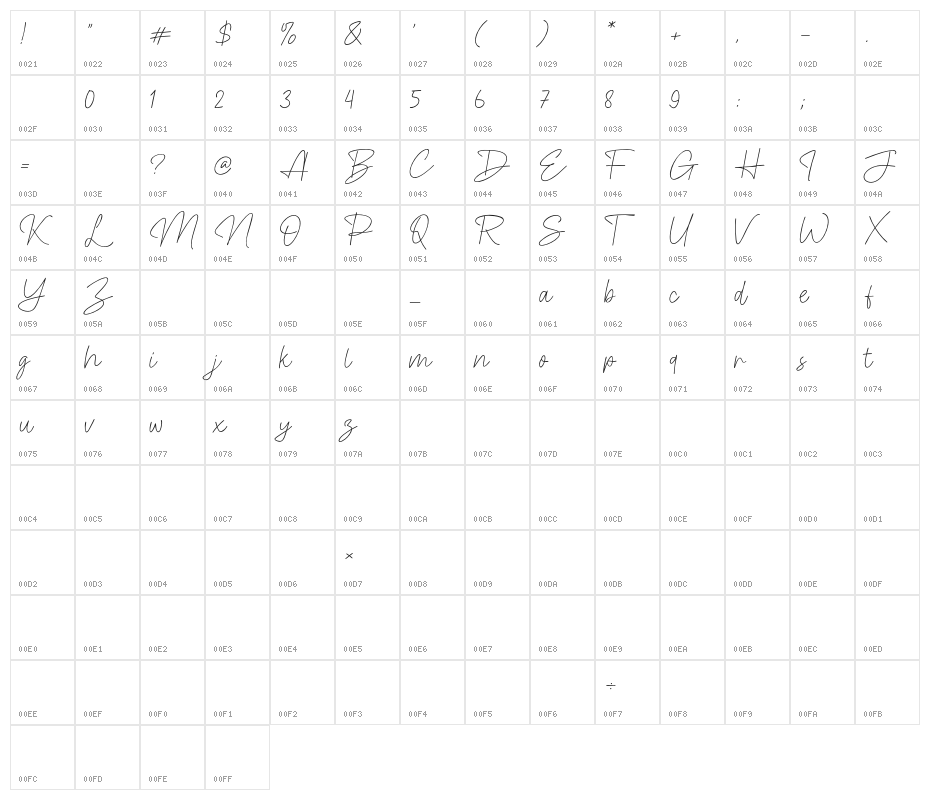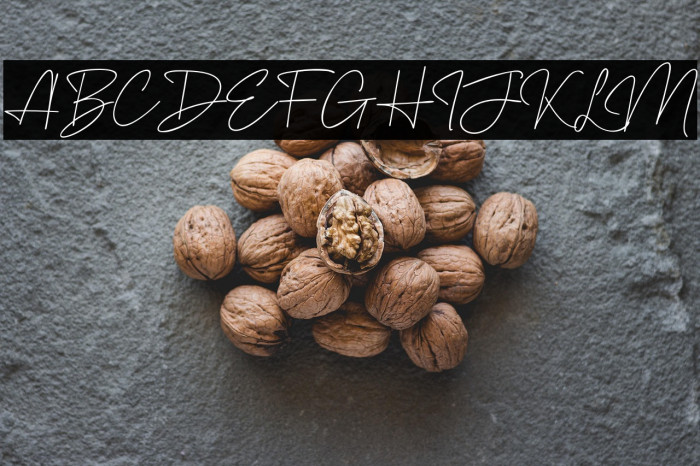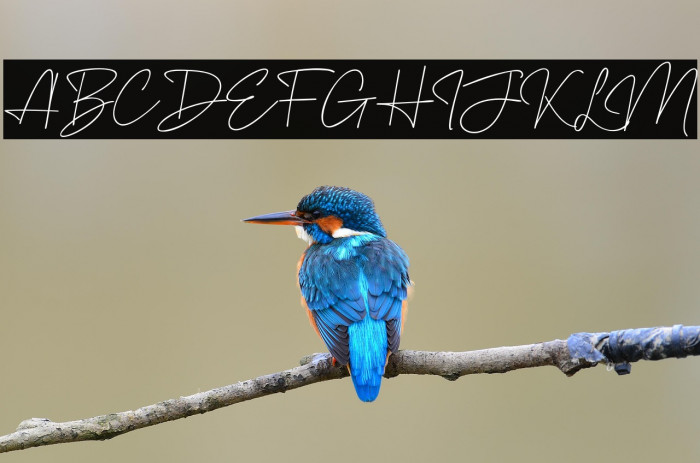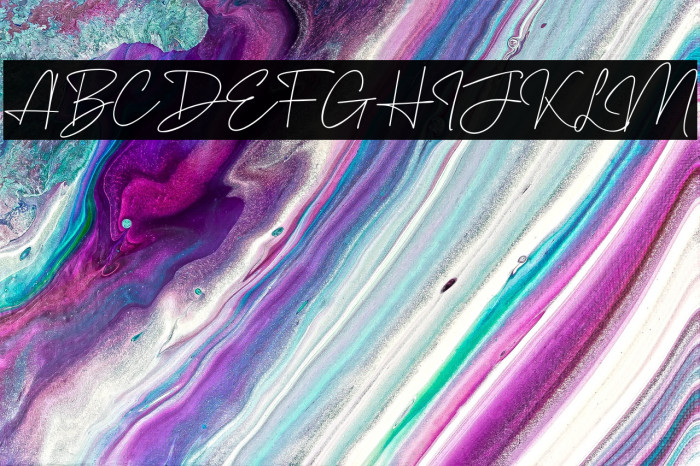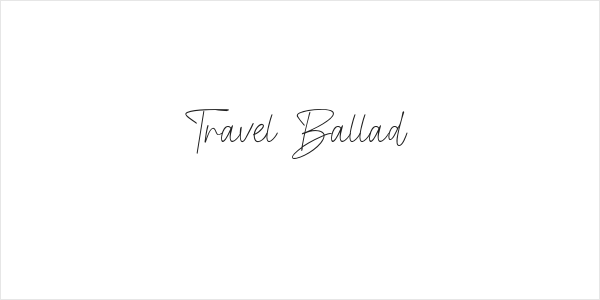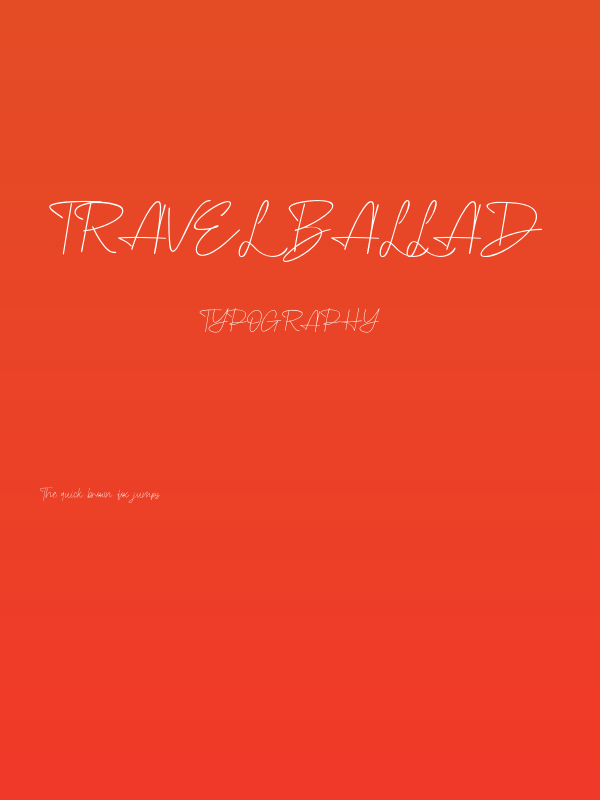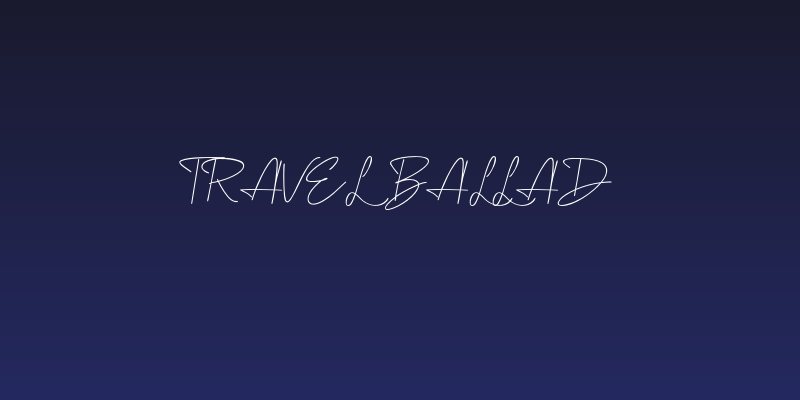
Travel Ballad Font
Travel Ballad Description
This font features a flowing, cursive style that exudes elegance and sophistication. The characters are connected in a smooth, continuous manner, giving it a handwritten appearance. The uppercase letters are slightly larger and more prominent, while the lowercase letters maintain a consistent flow. The numbers and special characters are designed to match the overall aesthetic, with a playful yet refined look. The strokes are thin, providing a delicate and airy feel, making it suitable for projects that require a personal touch.
| Overall Style | Elegant, Handwritten |
| Proposed Projects | Ideal for wedding invitations, greeting cards, personal branding, and elegant stationery. |